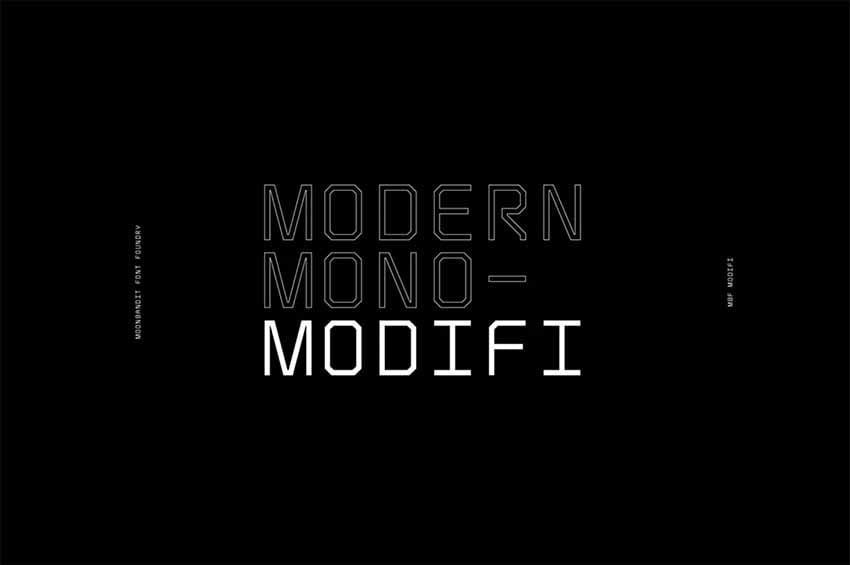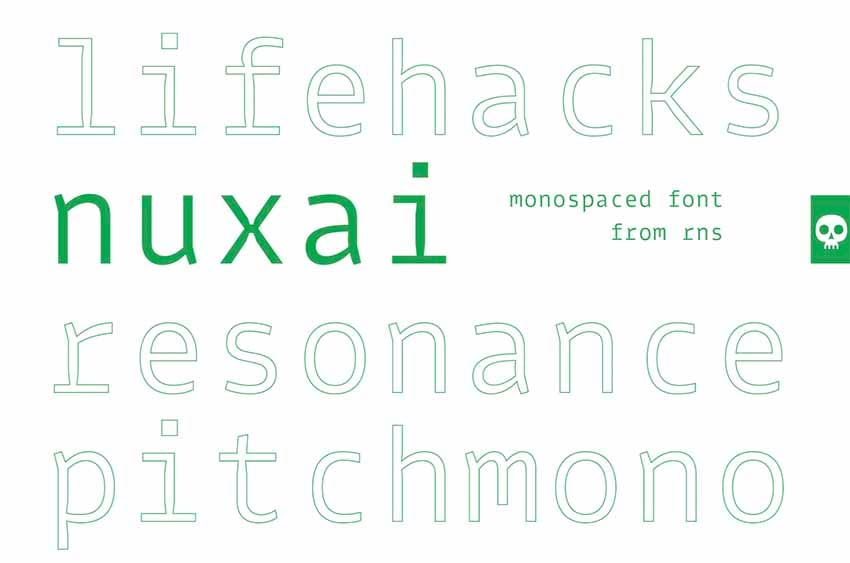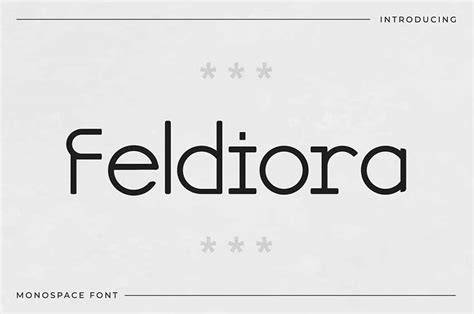
What Are Evenly Spaced Fonts?
At its most basic, evenly spaced fonts are typefaces where all the characters have the same amount of spacing between them. This means that when the letters are typed out, they all have the same distance between them. This type of font is also known as monospaced fonts. While this type of font is not as common as proportional fonts, they are still used in some contexts, such as in coding and programming. These fonts are also sometimes used in old-style typewriters, as well as in newspaper and magazine articles.
Benefits of Evenly Spaced Fonts
There are several benefits to using evenly spaced fonts. The first is that they are easier to read. This is because the spacing between the characters is consistent, which makes it easier for the eye to scan the text. Another benefit is that they are often more economical. This is because they take up less space on the page, which can save money in printing costs. Additionally, they can be easier to use for coding and programming, as the same amount of space is used for each character.
Examples of Evenly Spaced Fonts
There are a few popular examples of evenly spaced fonts. The most notable is Courier. This type of font was used in the early days of computers, and it is still used in some contexts today. Another popular option is Monaco, which is a typeface that was specifically designed for Apple computers. Finally, another example is Andale Mono, which was designed for Microsoft Windows.
Uses of Evenly Spaced Fonts
Evenly spaced fonts have a variety of uses. They are often used in coding and programming, as the consistent spacing makes it easier to read the code. Additionally, they can be used for old-style typewriters and newspapers. Finally, they can also be used in web design and other digital projects, as they are often more economical than other types of fonts.
Evenly spaced fonts can be a great choice for many different types of projects. They are easy to read, economical, and can be used for a variety of purposes. Whether you are coding, designing a website, or writing a newspaper article, evenly spaced fonts can be a great choice. So if you’re looking for a font that is easy to read and economical, evenly spaced fonts may be the perfect choice.